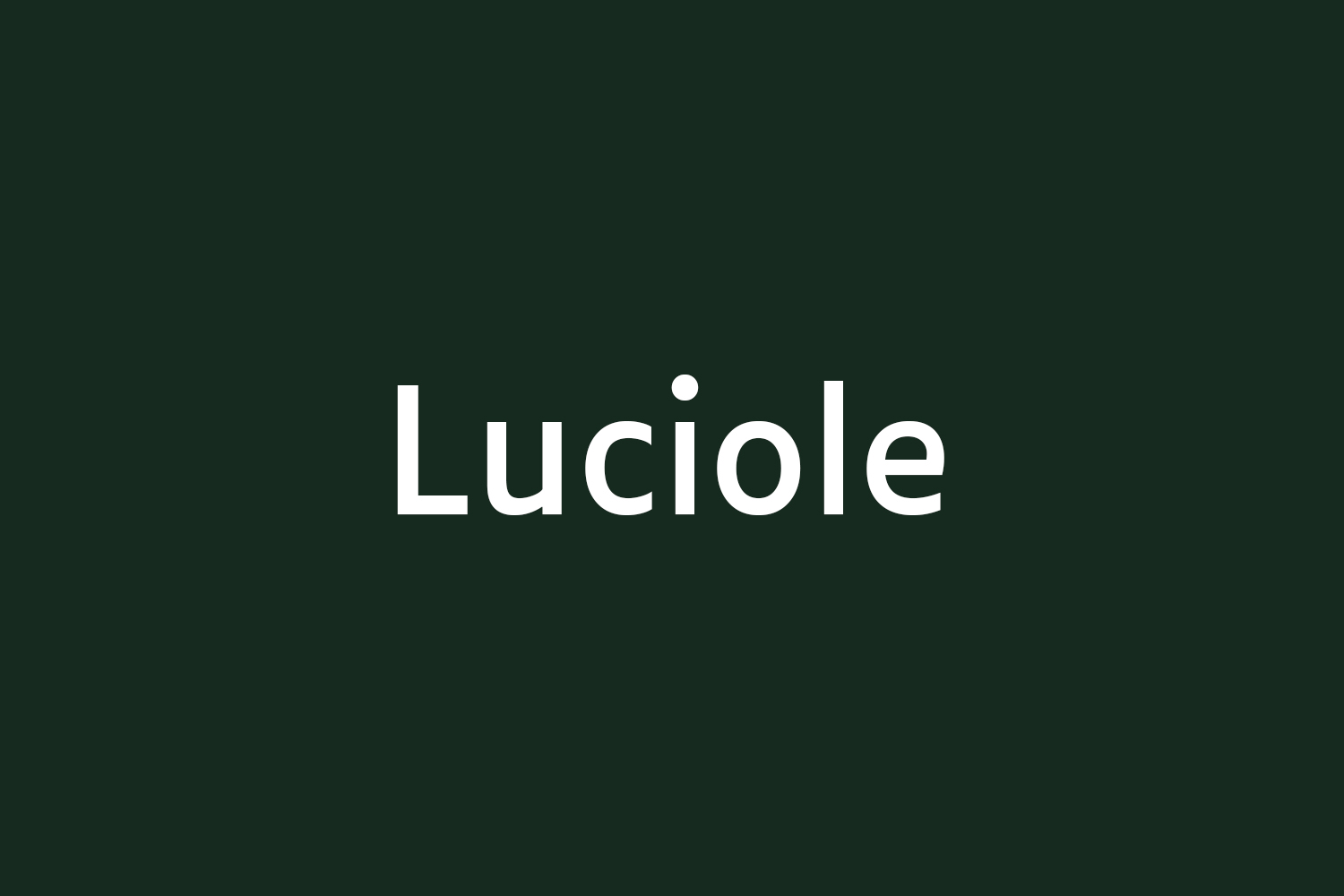
Luciole Free Font Family is a new typeface developed explicitly for visually impaired people. The result of a two-year collaboration between the Centre Technique Régional pour la Déficience Visuelle (the Regional Technical Center for Visual Impairment) and the type-design studio typographies.fr, this project received a grant from the Swiss Ceres Foundation and support from the DIPHE laboratory at the Université Lumière Lyon 2.
Designed by Typographies.fr
Luciole Regular The quick brown fox jumps over the lazy dog
Luciole Italic The quick brown fox jumps over the lazy dog
Luciole Bold The quick brown fox jumps over the lazy dog
Luciole Bold Italic The quick brown fox jumps over the lazy dog